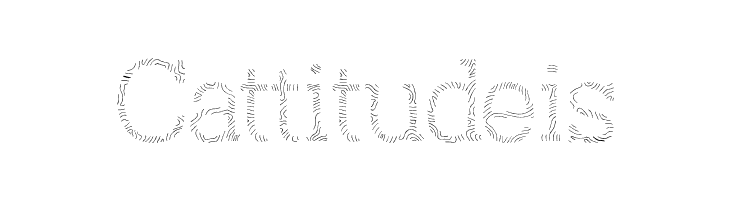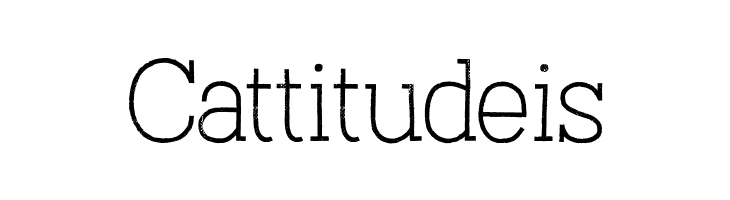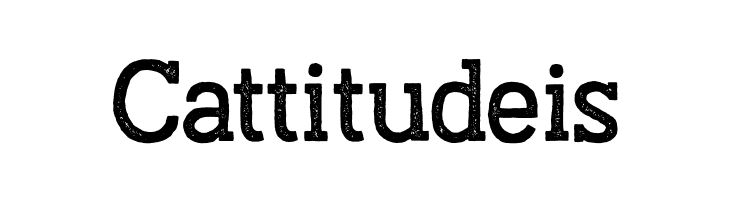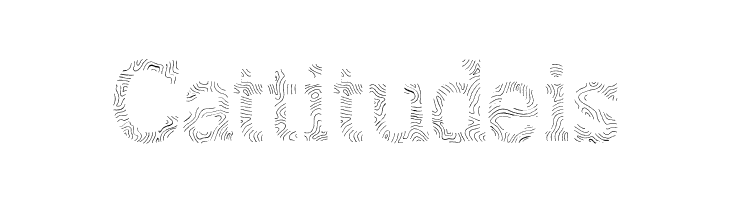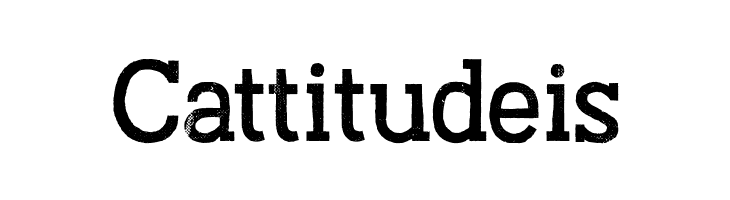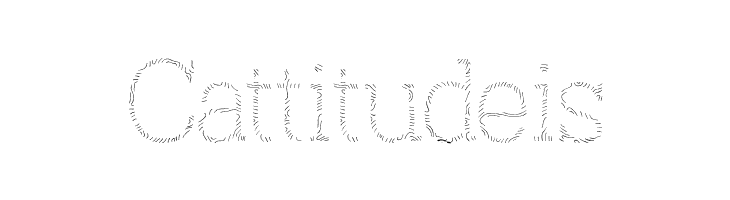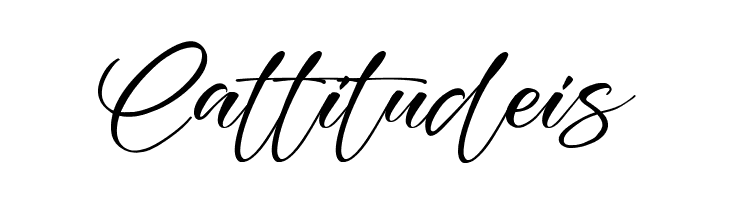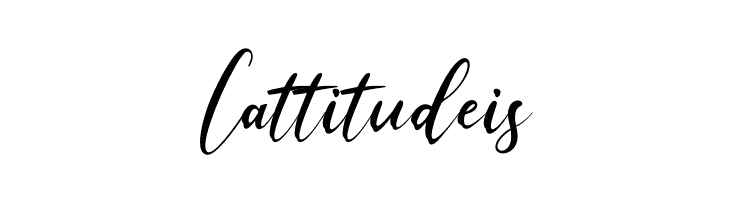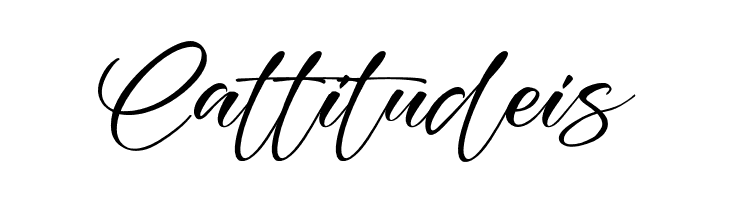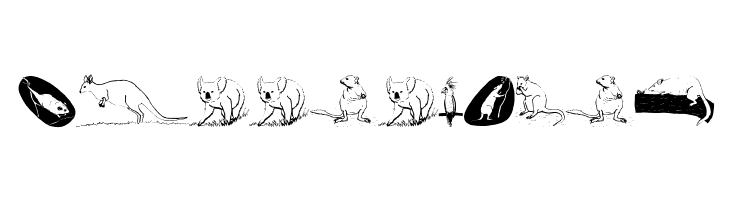
• austinsigns
A dynamic, expressive handwritten font with fluid strokes and elegant loops.
• Austra Down
A casual, handwritten font with a playful and informal style.
• Austragen
A bold, classic serif font with elegant and pronounced strokes.
• Austragen
A bold, elegant serif font with high contrast and classic style.
• Australia Beauty
A bold, expressive script font with dynamic strokes and elegant swirls.
• Australia Beauty Italic
A modern, elegant script font with a flowing, italic style.
• Australia Belmonte
A flowing, cursive script font with elegant, elongated characters.
• Australia Custom
A graceful script font with fluid, cursive strokes and elegant curves.
• Australia Custom Italic
A flowing, cursive script font with elegant, connected letters and an italic style.
• Australia Signature
A delicate, handwritten cursive font with a modern and elegant style.
• Australians Winter
A playful and elegant handwritten font with fluid strokes and whimsical flair.
• AustralianScript
An elegant script font with flowing, decorative swirls and loops.
• australion
A whimsical, handwritten font with fluid, cursive strokes and artistic flair.
• Australis-Regular
An elegant, flowing script font with smooth, cursive letterforms.
• Australove
A playful and elegant handwritten script font with decorative swirls.
• Australove
A playful and elegant handwritten script font with flowing curves.
• AustralSlabBlur-Light
A modern slab serif font with a subtle blur effect, offering a unique and approachable style.
• AustralSlabBlur-Regular
A bold slab serif font with strong, block-like serifs and a modern yet timeless appeal.
• AustralSlabBlur-Thin
A thin slab serif font with a subtle blur effect, combining modern and vintage elements.
• AustralSlabMaplines-Light
A detailed slab serif font with intricate, map-like line textures.
• AustralSlabMaplines-Regular